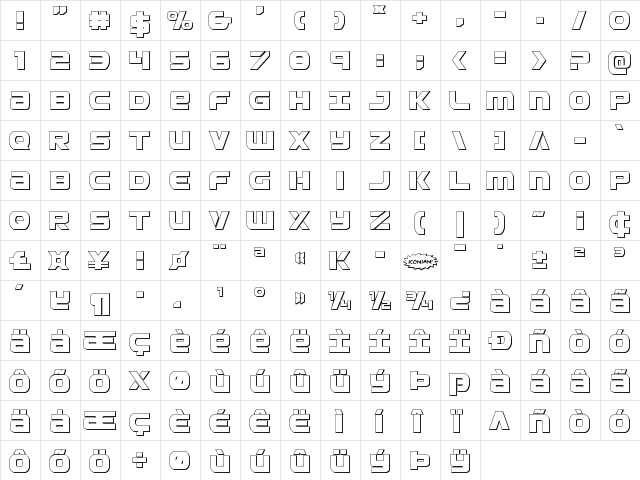
Ozda 3D Regular
Design Context for Ozda 3D Typeface
Ozda 3D takes a measured approach to typography — its balanced proportions and neutral character make it a reliable workhorse for both digital and print work.